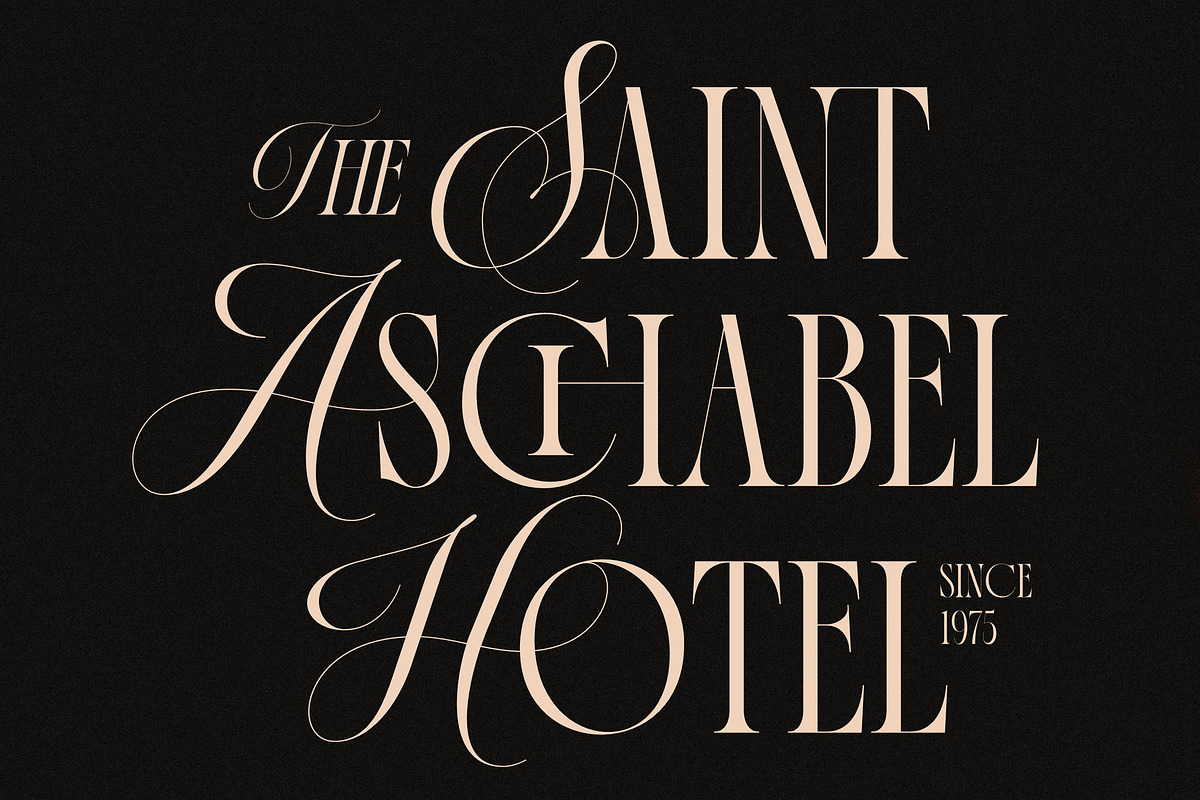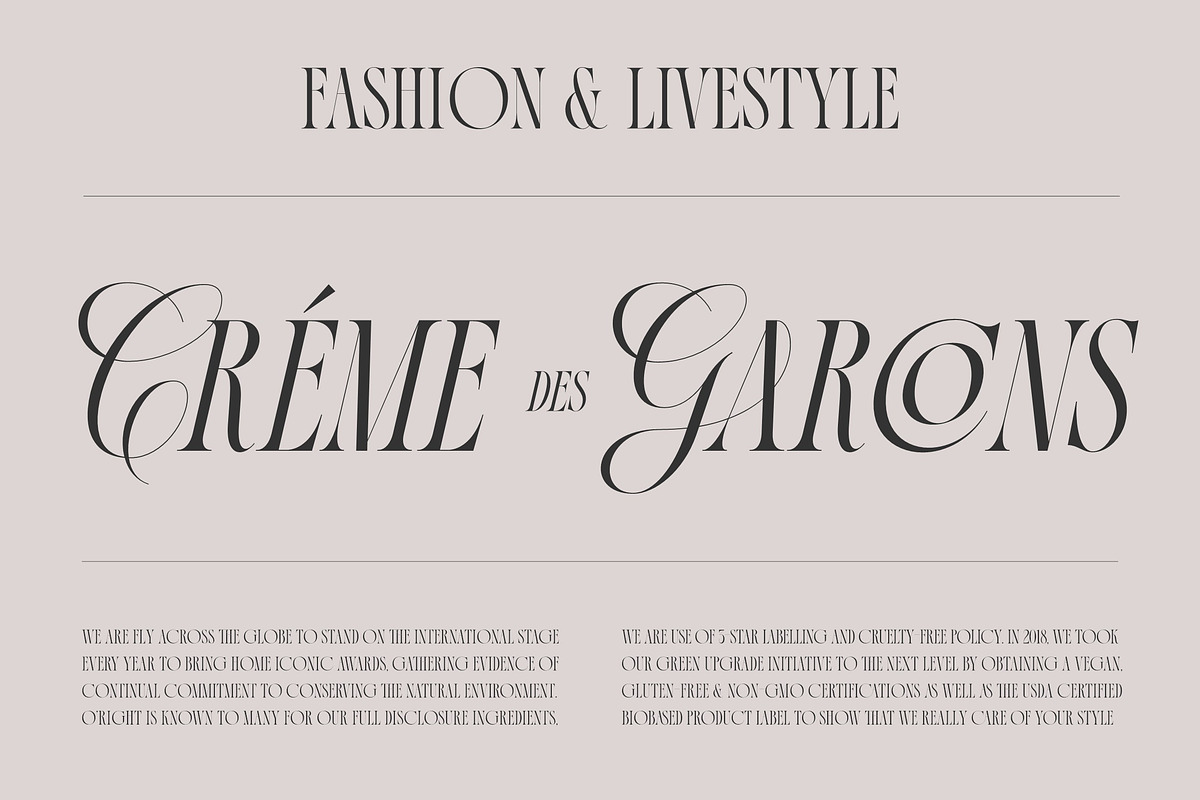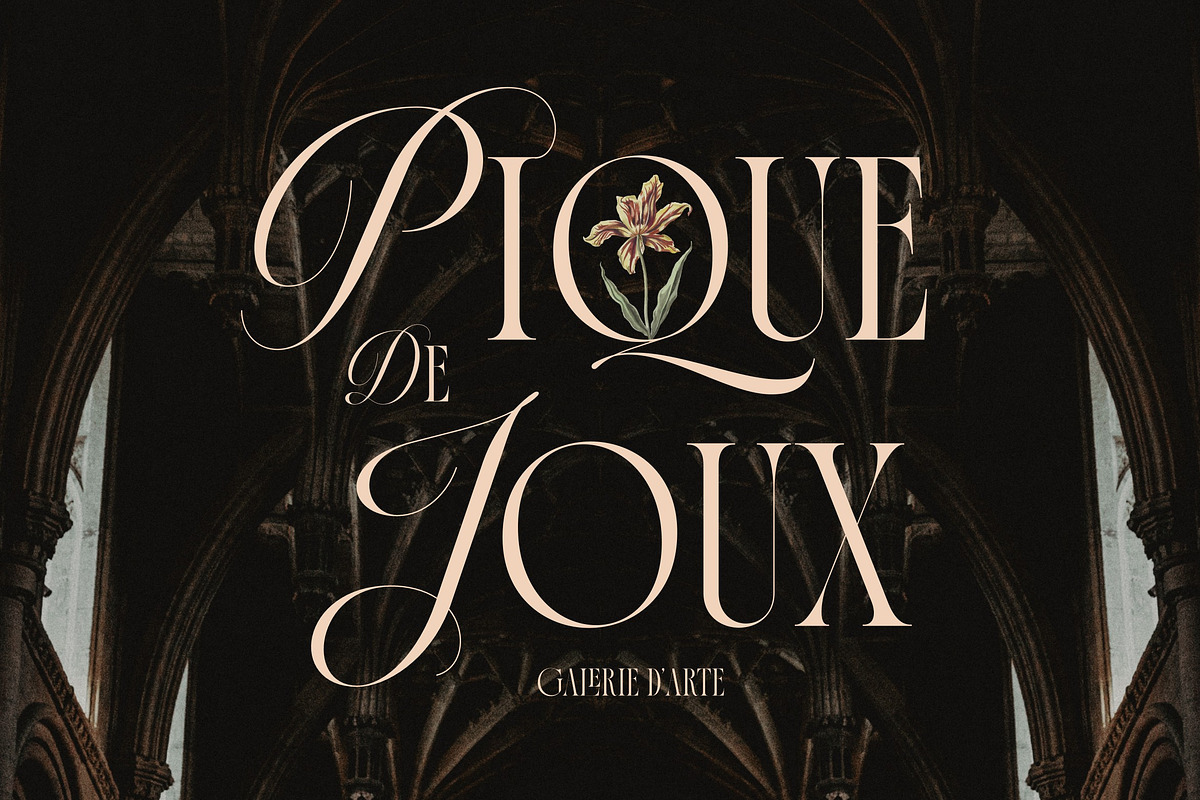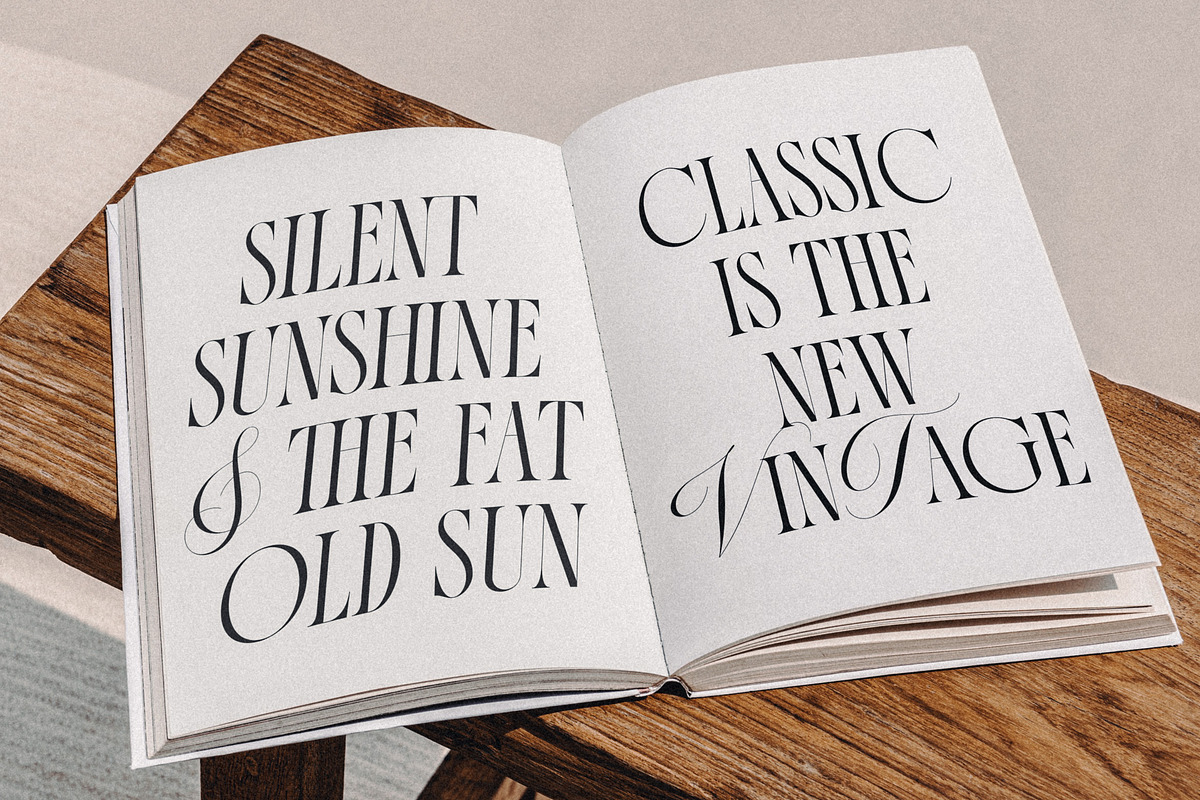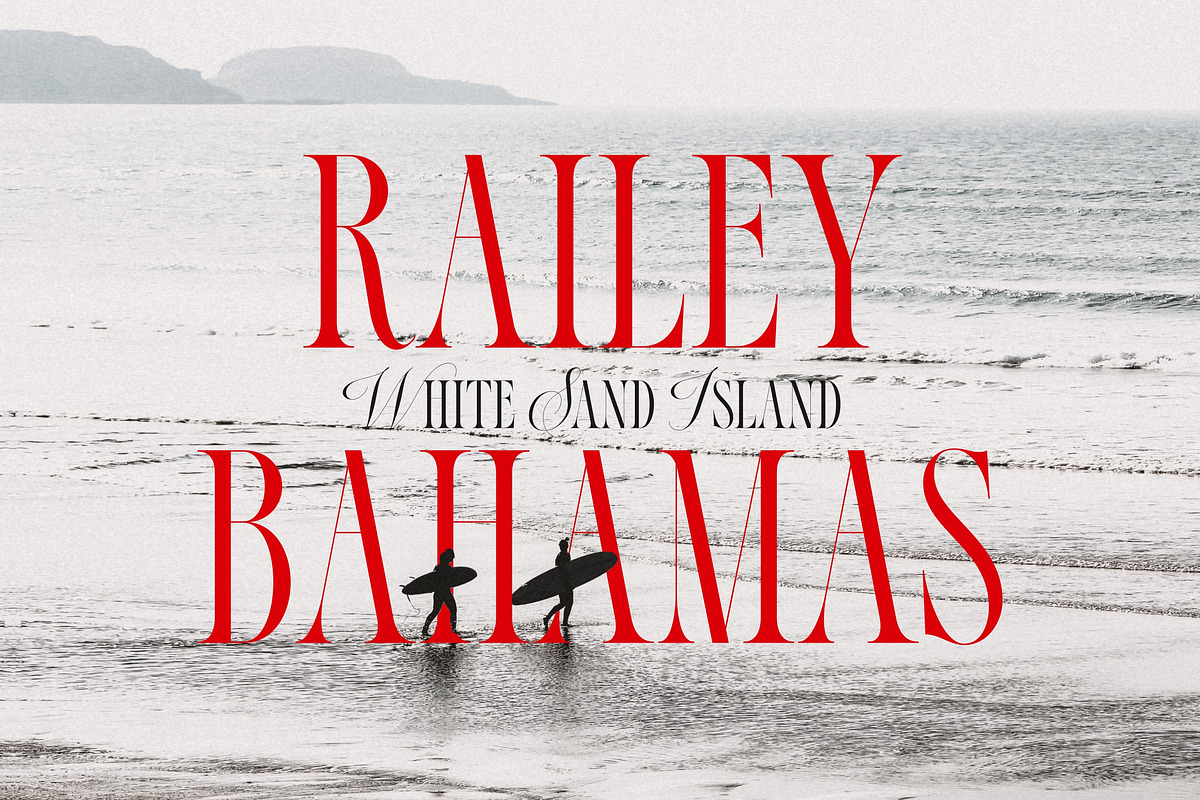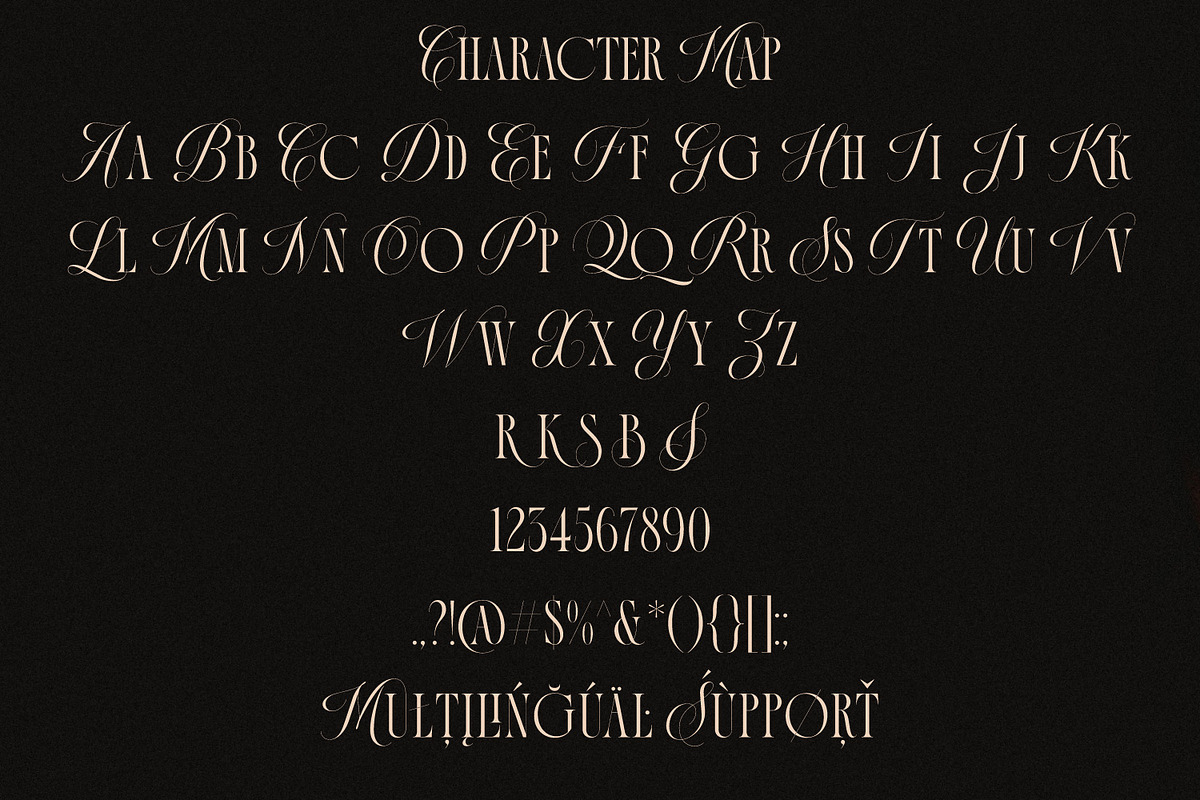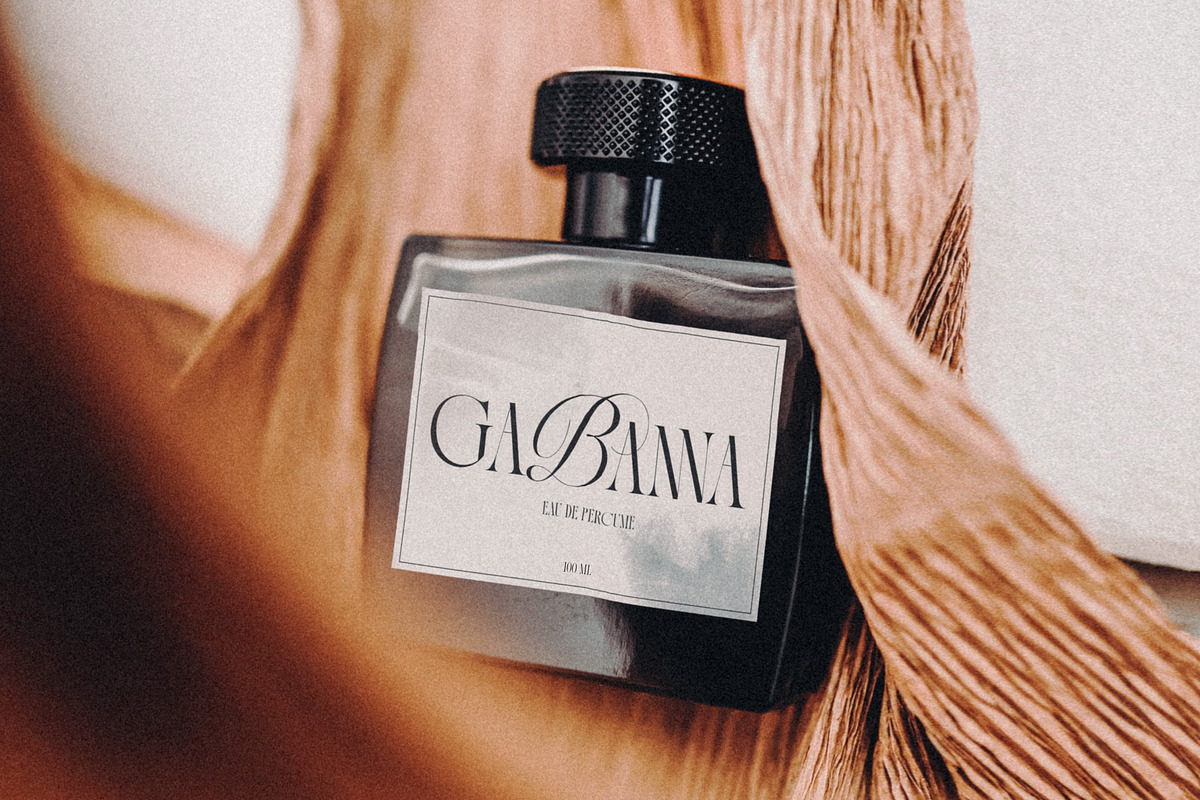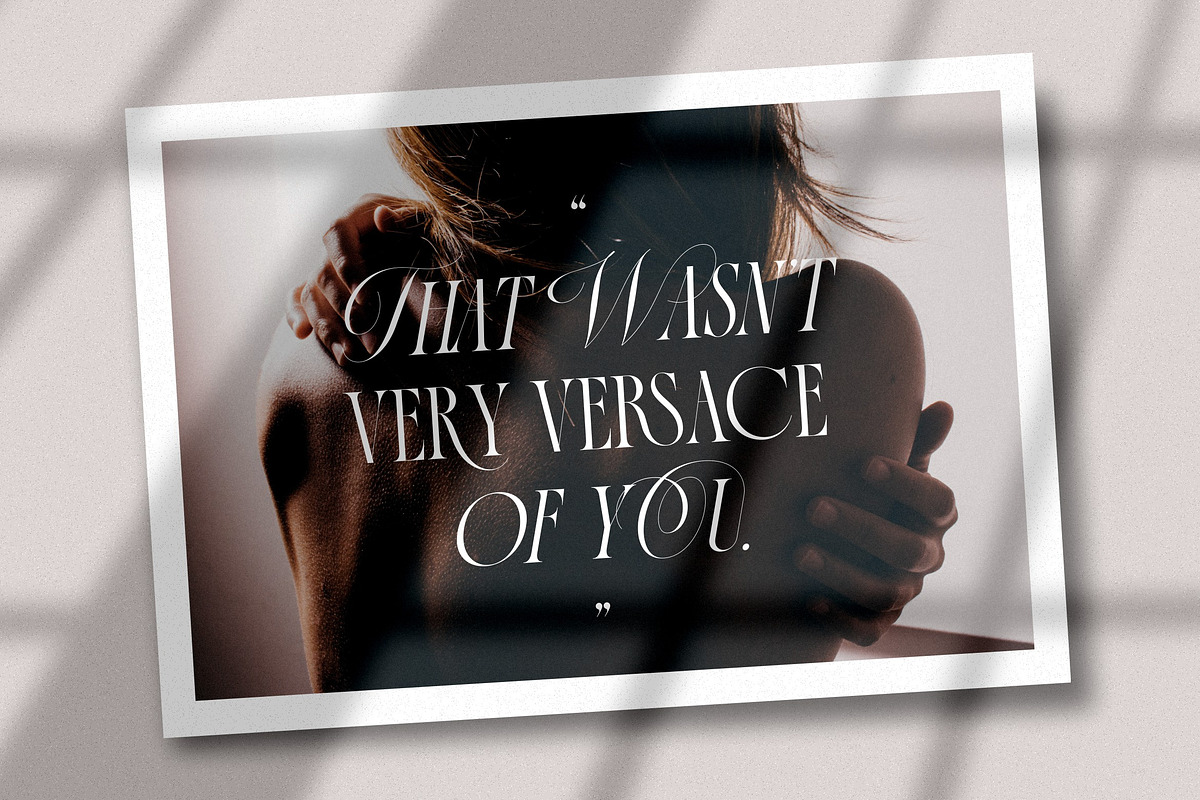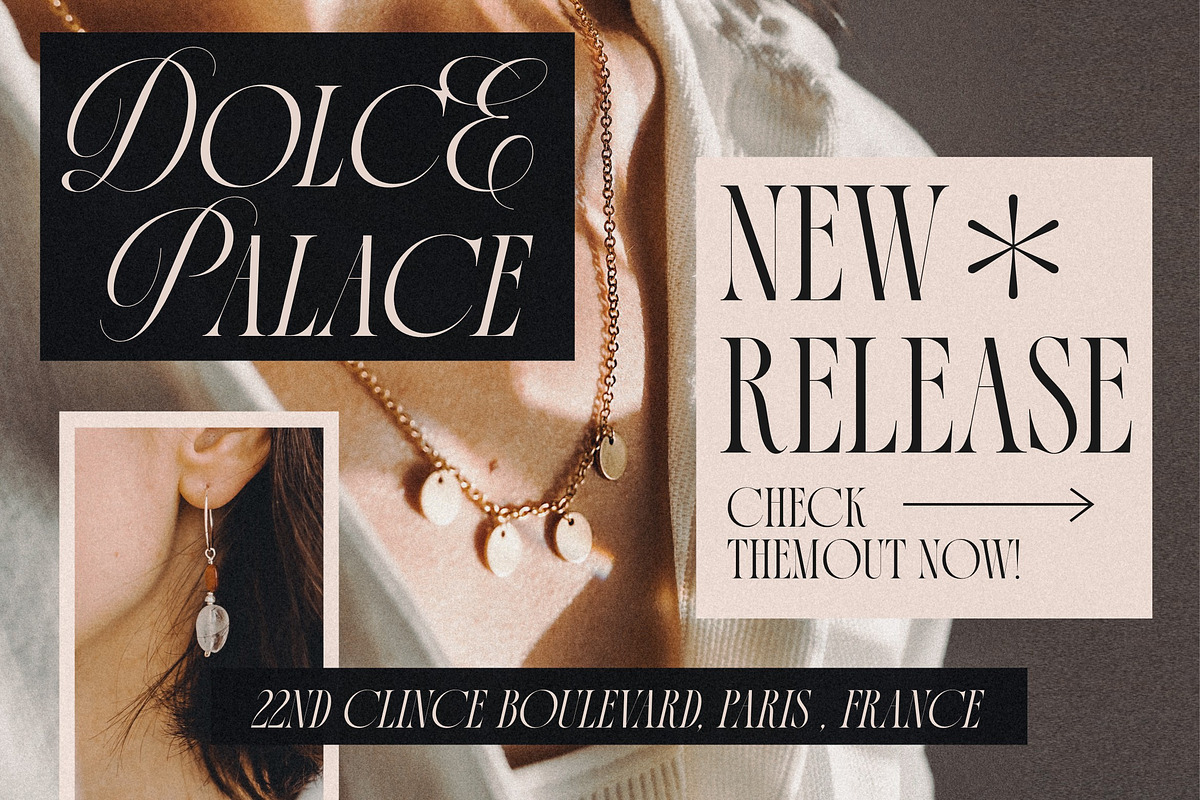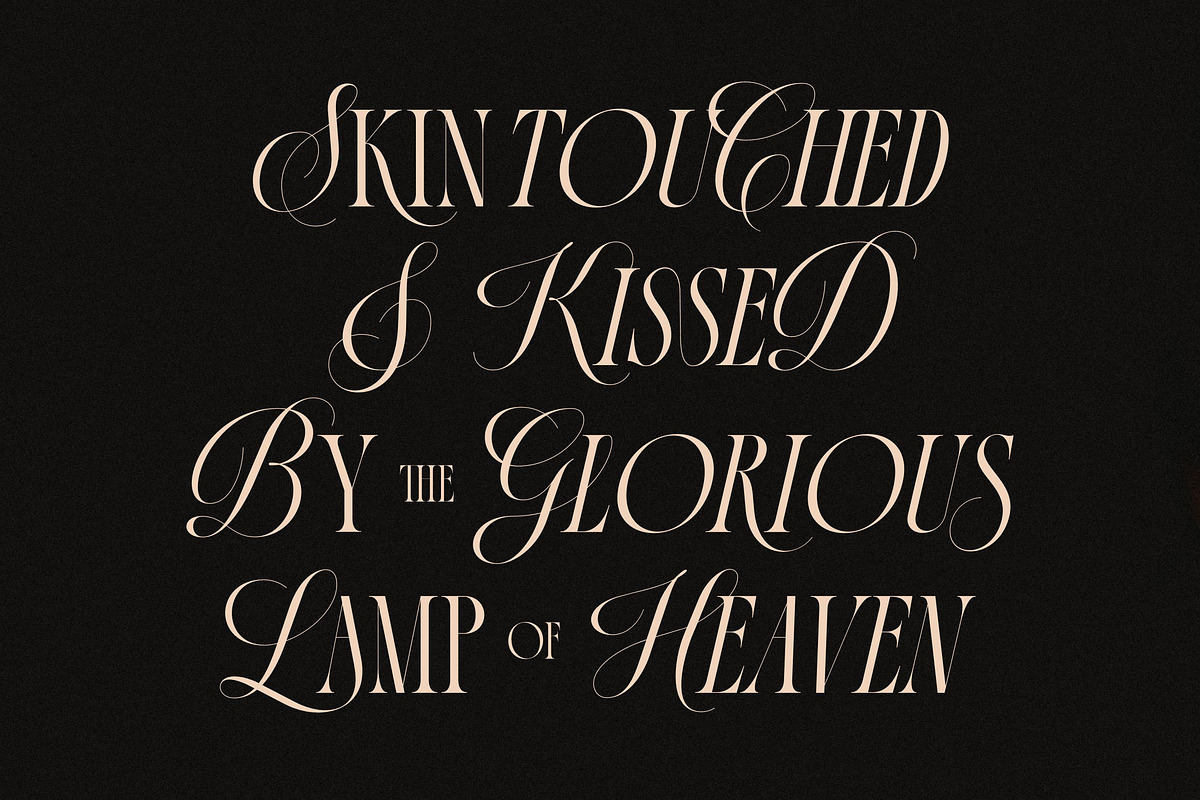
La Primera Ligature Serif
Introducing, La Primera! Luxurious and elegant font with a mix of classic calligraphy and modern serif. La Primera carries 99 ligatures that make this font even more unique.
La Primera is a versatile font, perfect for editorial projects, Logo design, Wedding, Clothing Branding, product packaging, magazine headers, or simply as a stylish text overlay to any background image.
- Italic & Regular Font Version
- Alternates, Numeral, Punctuation, Multilingual Accents.